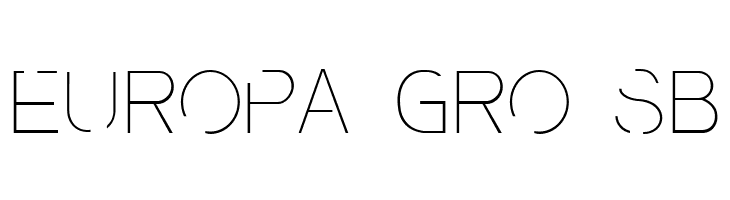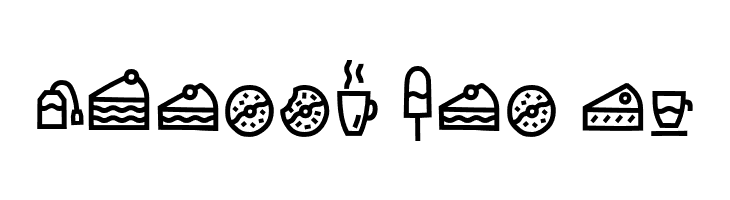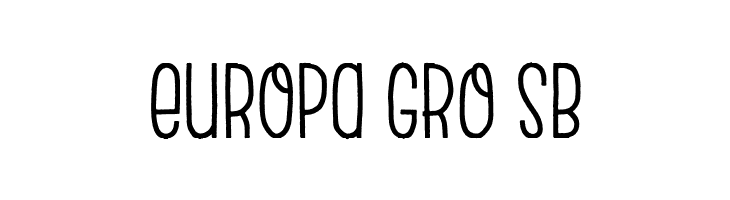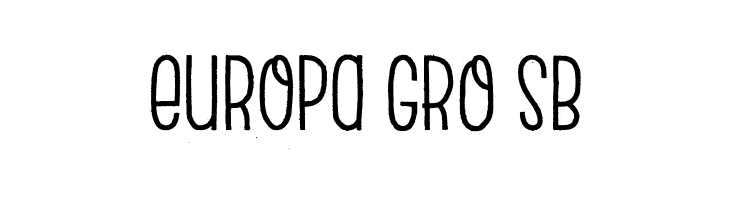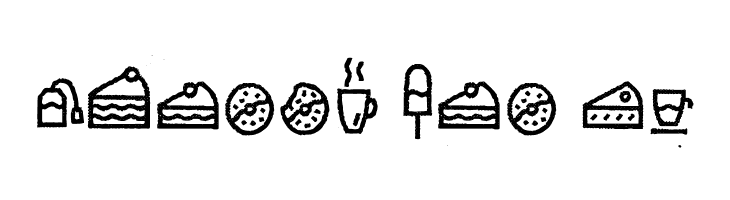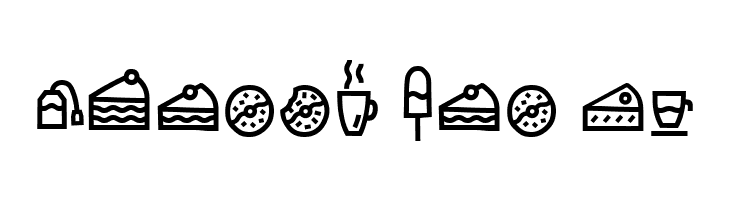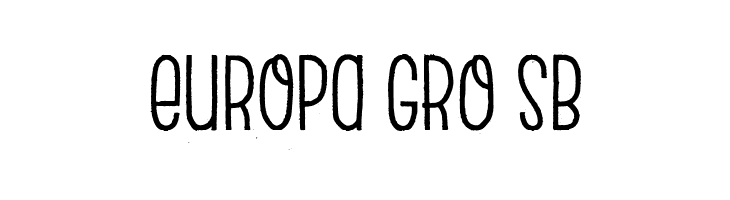
A sleek, ultra-light font with geometric precision and modern elegance.
Outlined, playful icons for food, drinks, desserts, and navigation.
A playful set of food and drink icons with bold outlines and a modern style.
A playful and bold icon set featuring food, drinks, and decorative elements.
A playful, narrow, and monoline font with a hand-drawn feel.
A tall, narrow font with a playful and quirky character.
A playful icon set featuring food, beverages, and decorative symbols with a cartoonish style.
Outlined, playful icons with a food and navigation theme.
A playful, hand-drawn font with tall, narrow letters and rounded edges.
A hand-drawn, narrow font with a whimsical and artistic style.